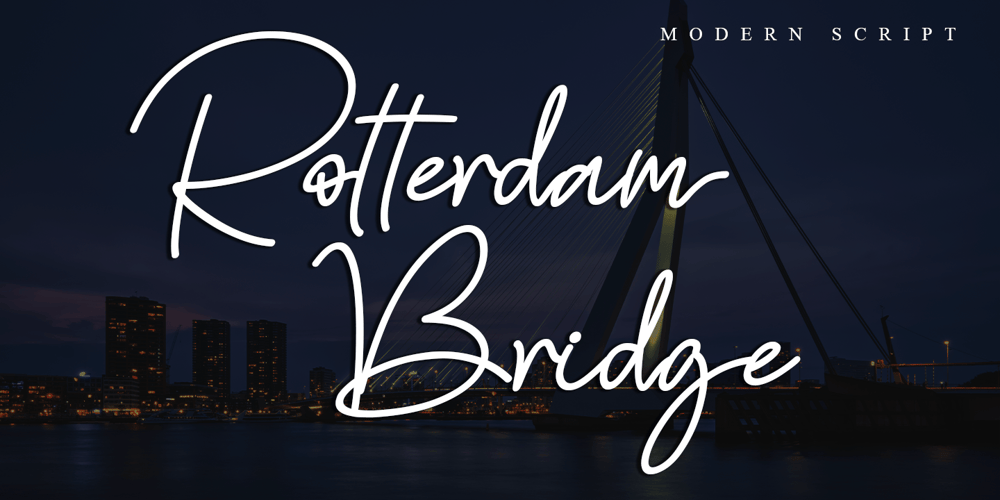
Rotterdam Bridge Font Family was designed by Thomas Aradea and published by Stefani Letter. Rotterdam Bridge contains 2 styles and family package options. Rotterdam Bridge is a beautiful monoline script font that will effortlessly add a perfect look to any craft! Your imagination and this font will make a perfect combination. Get inspired by its unique charm and create amazing greeting cards, Weddings, books, logos, stationery, and much more! This font is PUA encoded which means you can access all of the cute glyphs with ease! It also features a wealth of including ligatures.